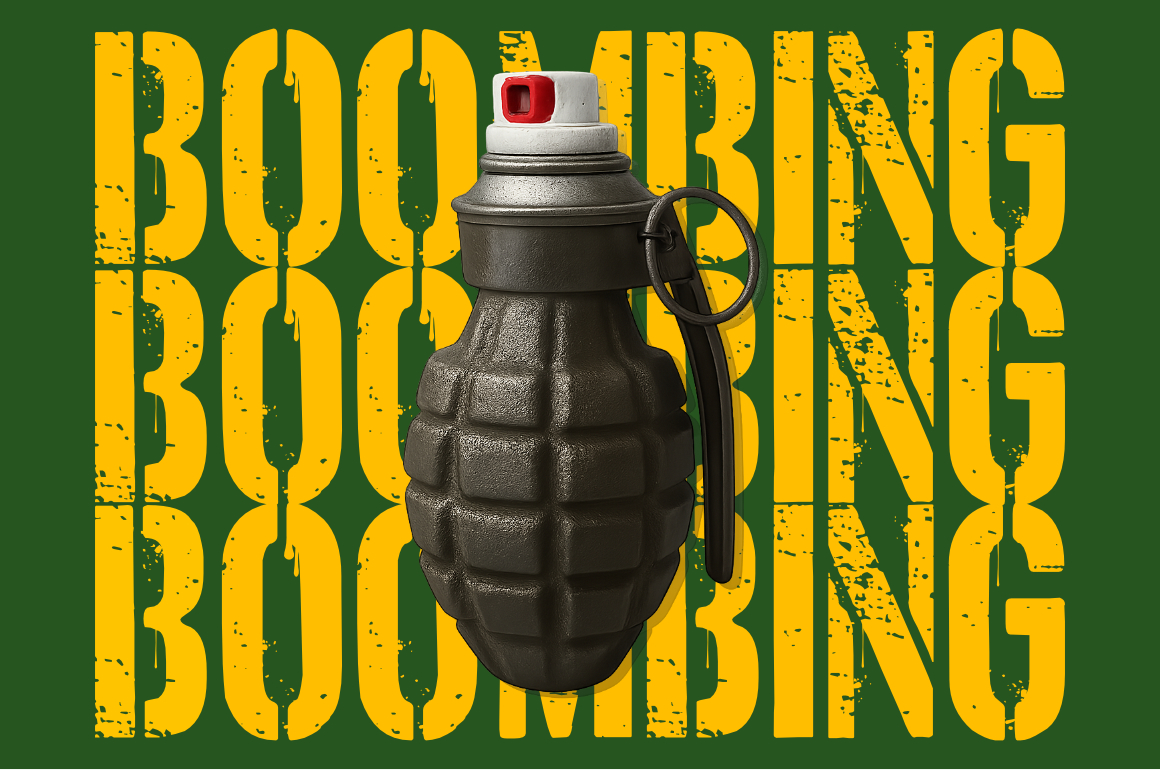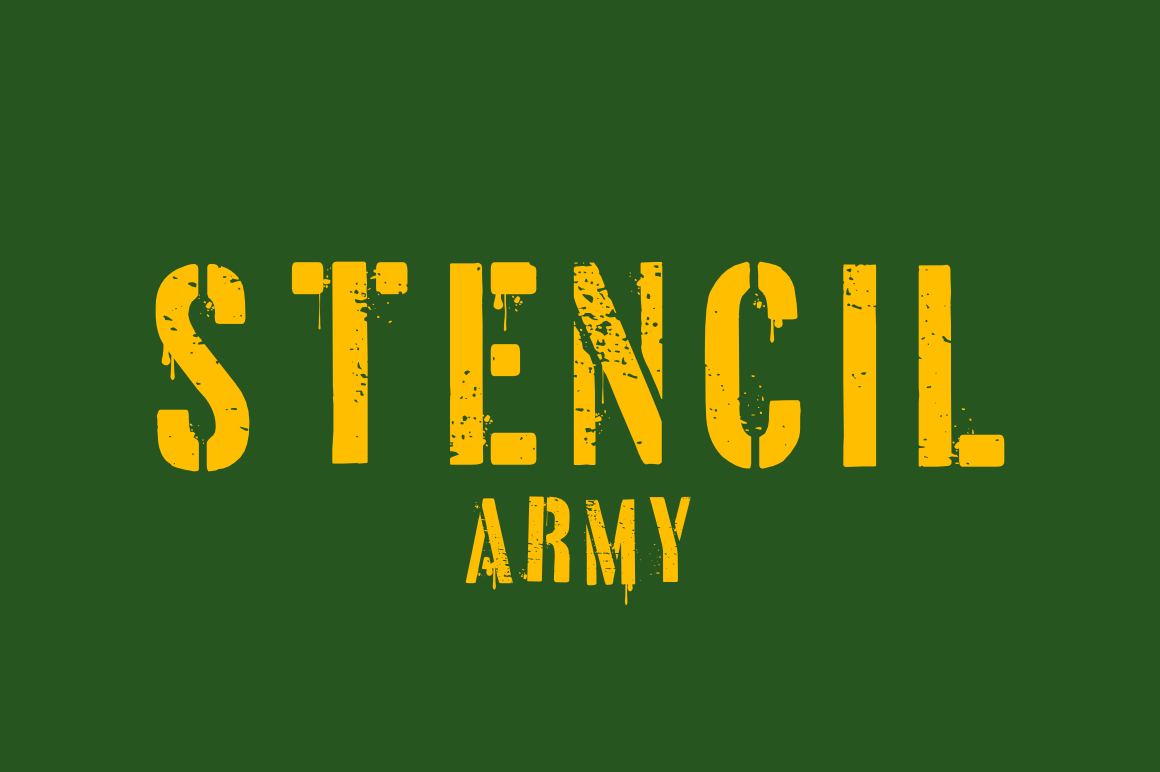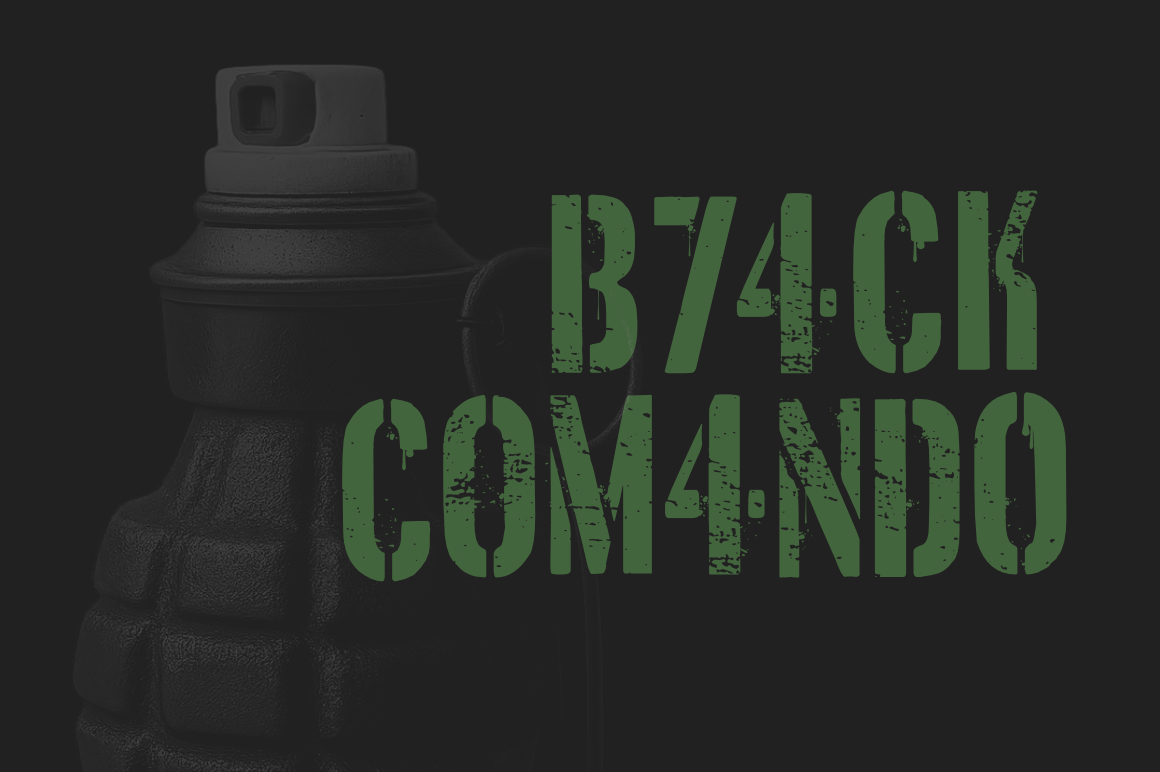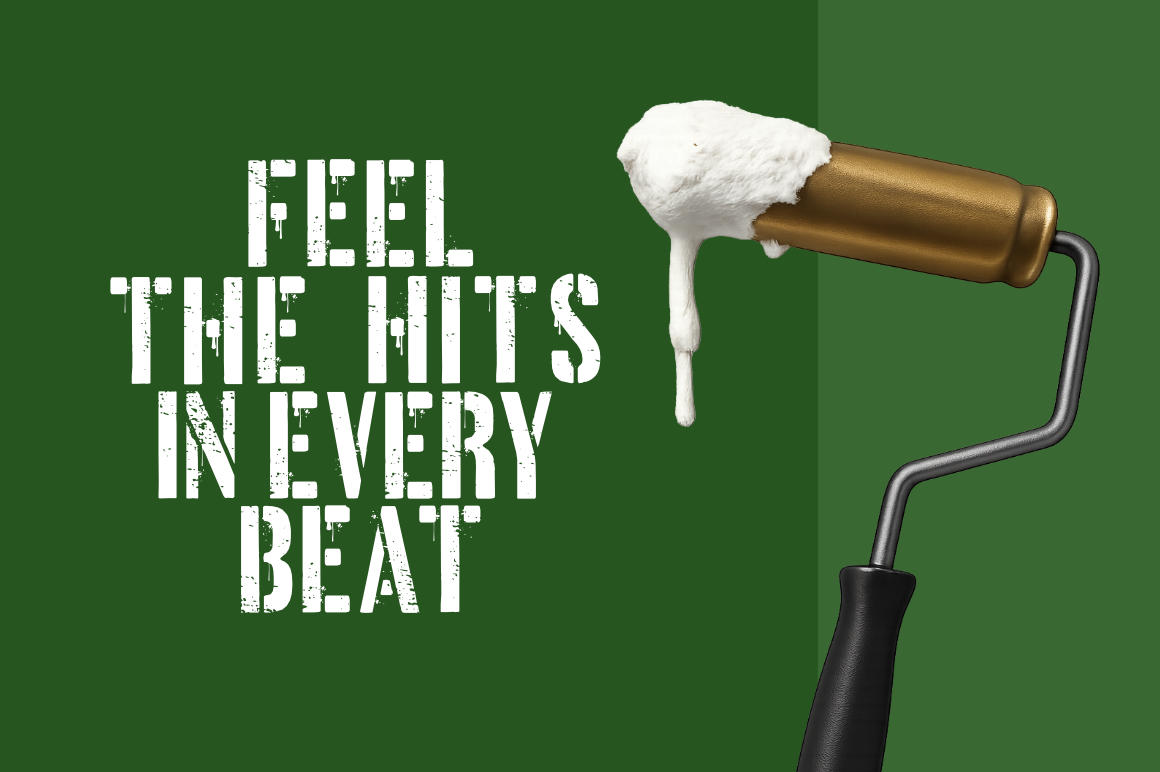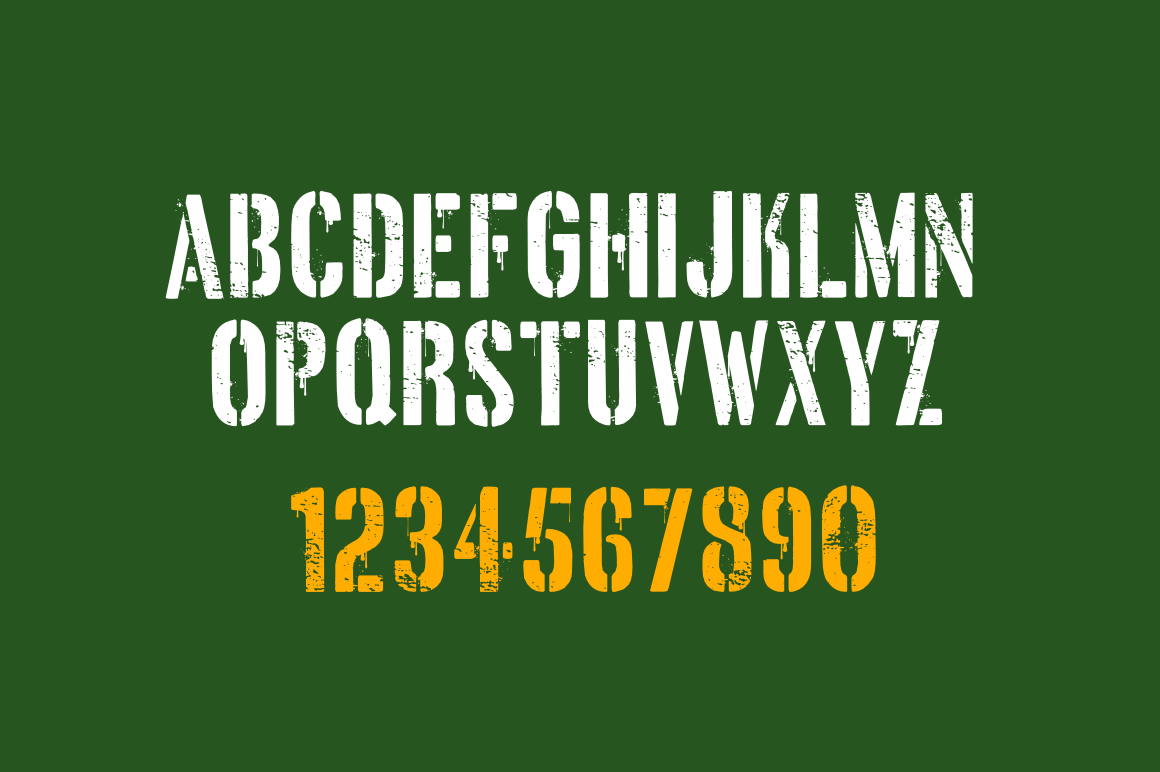
Stencil Army Font
Font Stencil Army -
Army stencil Totem is squad style Font With street art spray Model Font. Army Totem has a stencil character and display typeface. Army totem is a font inspired by squad and street art styles.
This font is perfect for projects with army and stencil themes. But this font is also suitable for logos, branding, greeting cards, invitation cards, advertisements, titles, headlines, book titles, stickers, packaging, quotes, posters, billboards and others.